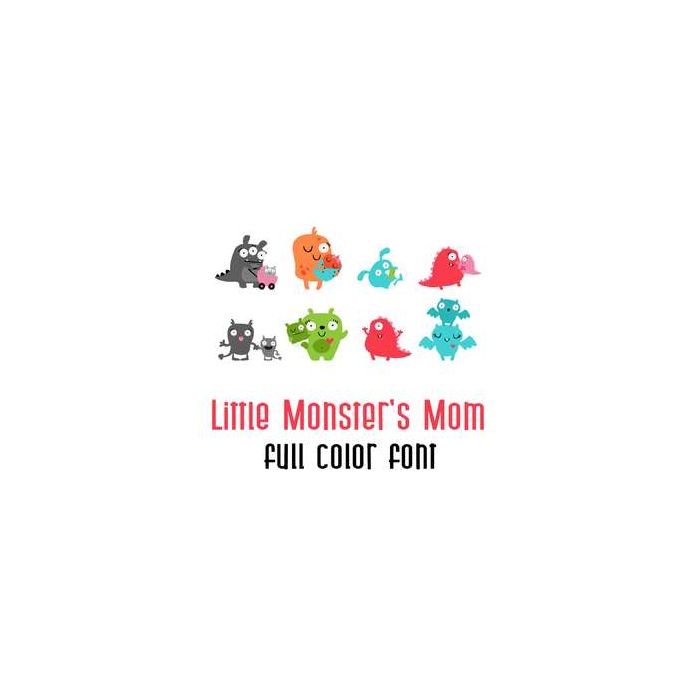
This adorable full color doodlebat font features adorable mom and child monsters perfect for Mother's Day. Use for cards, crafts, gifts, decor, scrap book pages, planner stickers and more!